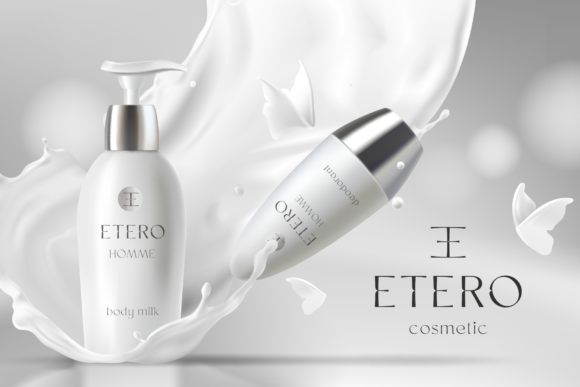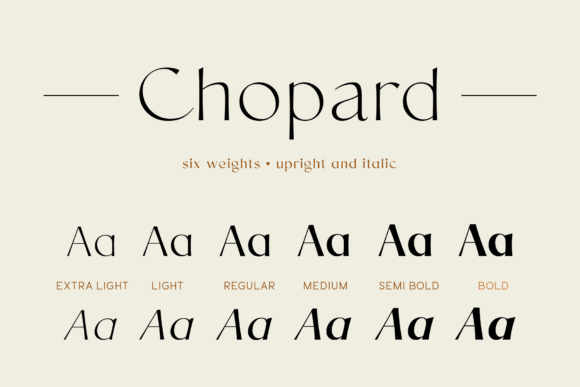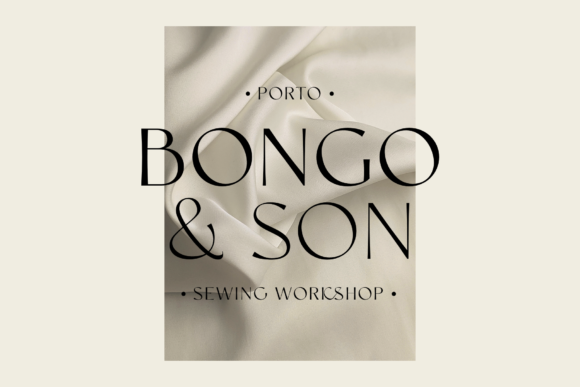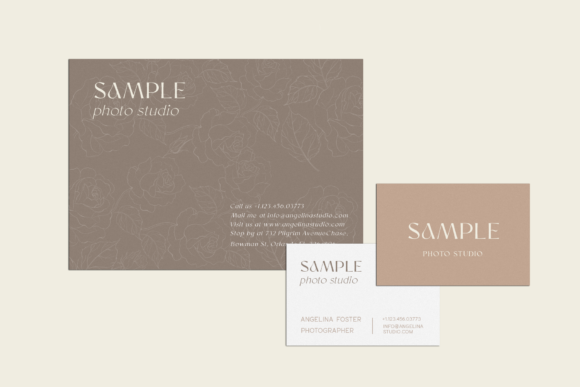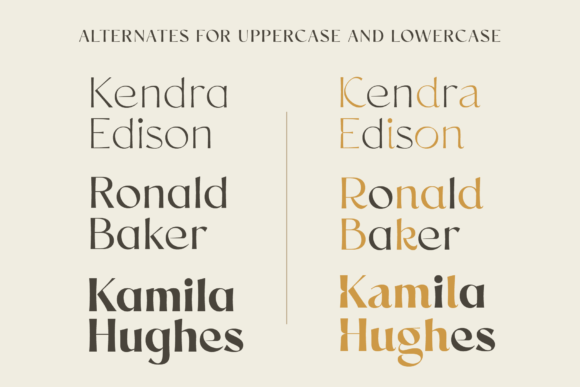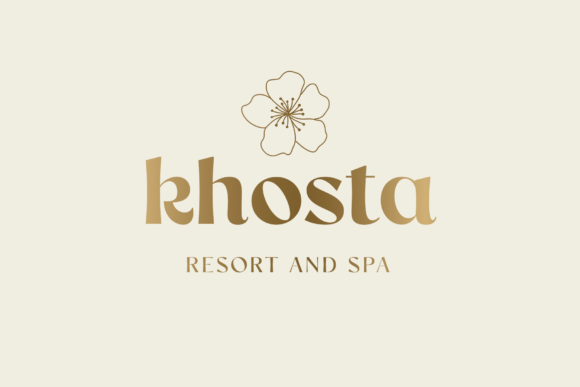
Introduction to Chopard Font
Chopard is an elegant and modern sans serif font.
Add this font to your creative ideas and notice how it will make them stand out .
Key Features of Chopard Font
Why Choose Chopard Font?
Chopard Font offers exceptional quality and versatility, making it a valuable addition to your design toolkit. Whether you’re creating for personal projects or commercial use, Chopard Font delivers professional results.